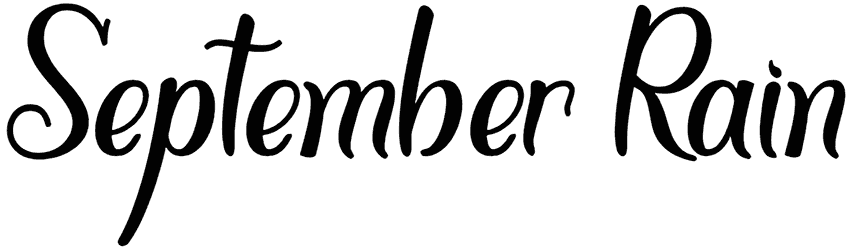
September Rain Font
Designed byNabil Fahmi
If you want to write great content that takes control of your audience’s mind, September Rain can be your most powerful tool. This script font has a high resolution that doubles the reading speed of the content and gives the audience the opportunity to focus on the written text instead of drowning in additional decorations.
For this reason, it seems an ideal choice for designing headlines, sports events, scientific conferences, and administrative letters.